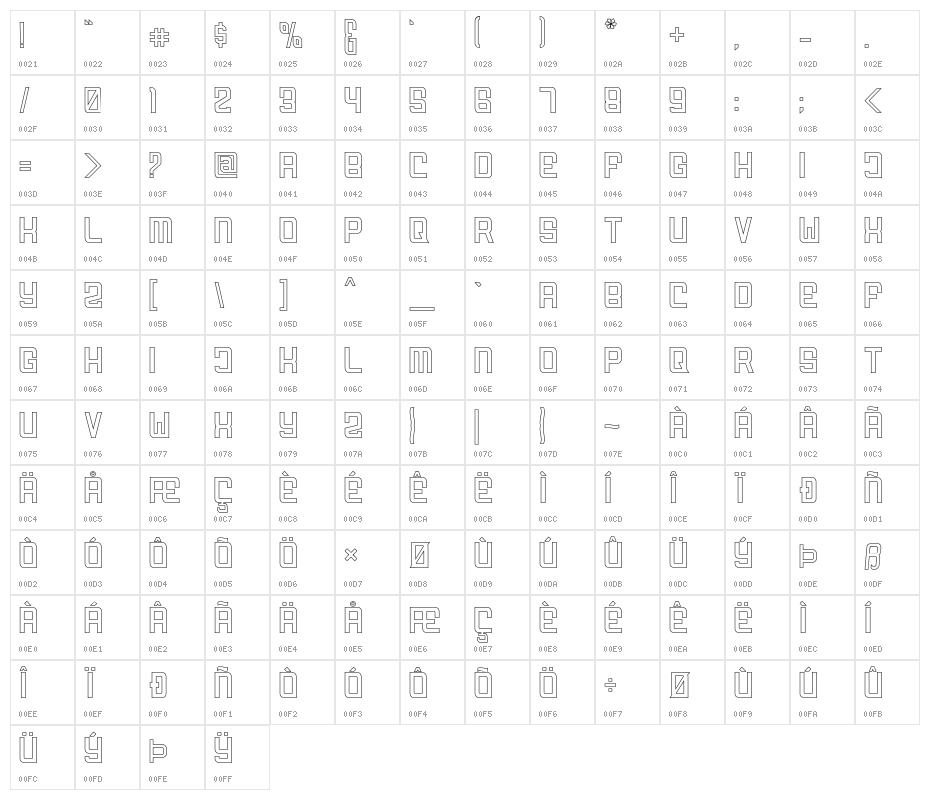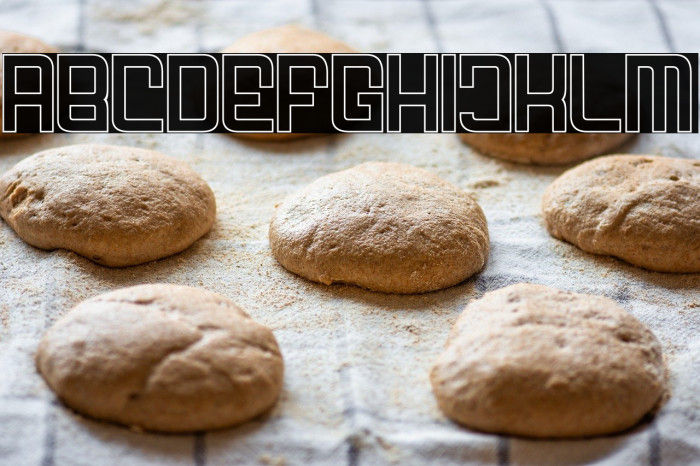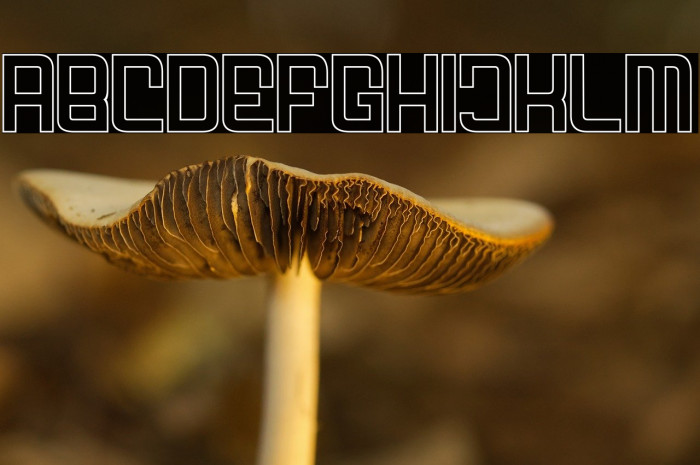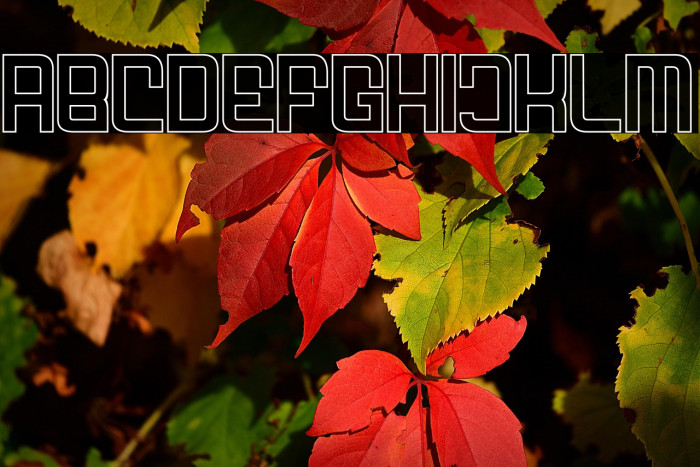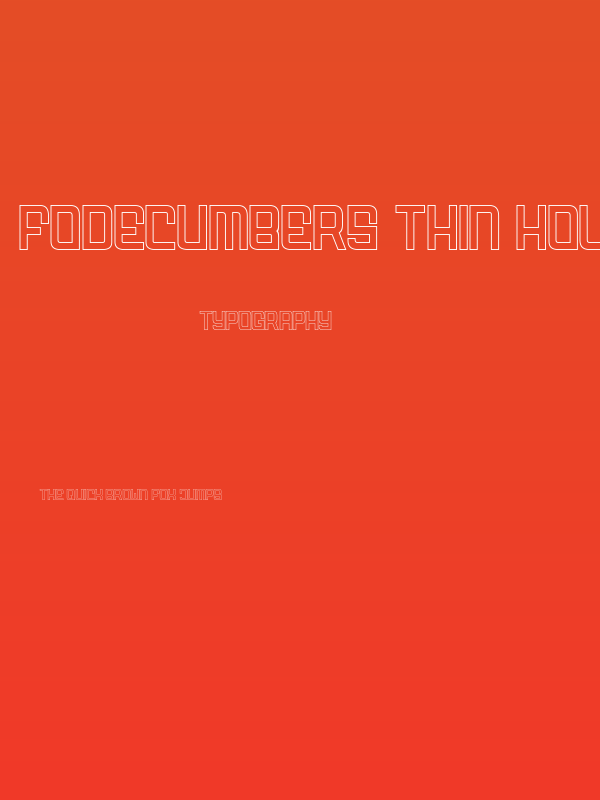
FODECUMBERS THIN HOLOW Font
FODECUMBERS THIN HOLOW Description
This font features a unique hollow design with a geometric and futuristic aesthetic. The characters are outlined, creating a sense of depth and dimension. The uppercase letters are bold and structured, with sharp angles and clean lines, giving it a modern and tech-inspired look. The numbers and special characters follow the same design principles, ensuring consistency across all elements. This font stands out with its distinctive style, making it suitable for projects that require a bold and eye-catching typeface.
| Proposed Projects | Ideal for technology branding, futuristic posters, digital art, and sci-fi themed projects. |